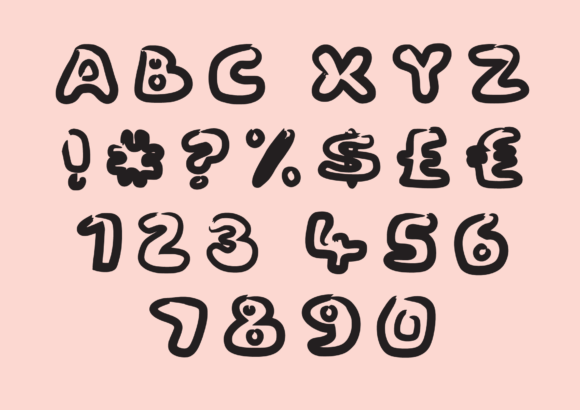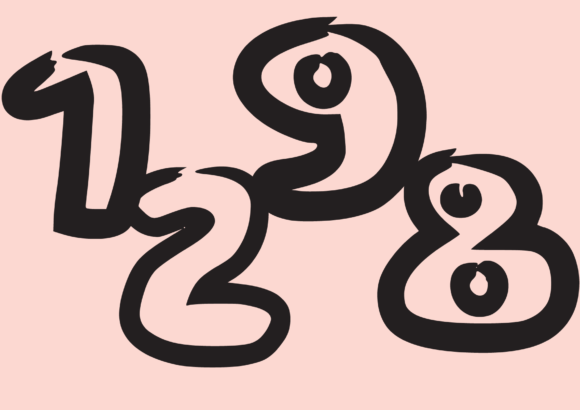
Introducing Fat Worm Font: The Ultimate Casual Display Font for Designers and Crafters
Are you tired of using the same old fonts in your designs? Do you want to add a touch of personality and whimsy to your creations? Look no further than Fat Worm Font, a casual, thick lettered brushed display font that’s sure to make your designs stand out.
What is Fat Worm Font?
Fat Worm Font is a unique and eye-catching display font that’s perfect for designers and crafters who want to add a bit of flair to their work. This outlined display font features thick, bold letters with a brushed texture, giving it a fun and casual vibe. Whether you’re designing a logo, creating a social media graphic, or crafting a handmade project, Fat Worm Font is the perfect choice.
Key Features of Fat Worm Font
- Thick, bold letters: Fat Worm Font features thick, bold letters that are sure to grab attention.
- Brushed texture: The font’s brushed texture gives it a fun and casual feel that’s perfect for creative projects.
- Outlined design: The outlined design of Fat Worm Font makes it easy to use over images or other backgrounds.
- Casual vibe: The font’s casual vibe makes it perfect for designers and crafters who want to add a bit of personality to their work.
Uses for Fat Worm Font
Fat Worm Font is a versatile font that can be used in a variety of creative projects. Here are a few ideas to get you started:
- Logos and branding: Use Fat Worm Font to create a unique and eye-catching logo for your business or brand.
- Social media graphics: Add Fat Worm Font to your social media graphics to make them stand out.
- Handmade projects: Use Fat Worm Font to add a personal touch to your handmade projects, such as scrapbook pages, cards, and gift tags.
- Signs and posters: Fat Worm Font is perfect for creating eye-catching signs and posters.
Why Choose Fat Worm Font?
There are many fonts to choose from, but Fat Worm Font stands out from the rest. Here are a few reasons why:
- Unique design: Fat Worm Font has a unique and eye-catching design that’s sure to grab attention.
- Easily readable: Despite its bold and brushed texture, Fat Worm Font is easily readable, even at smaller sizes.
- Versatile: Fat Worm Font can be used in a variety of creative projects, from logos and branding to social media graphics and handmade projects.
Fat Worm Font is a unique and eye-catching display font that’s perfect for designers and crafters who want to add a bit of personality to their work. With its thick, bold letters and brushed texture, Fat Worm Font is sure to make your designs stand out. Whether you’re creating a logo, social media graphic, or handmade project, Fat Worm Font is the perfect choice. So why wait? Download Fat Worm Font today and start creating!